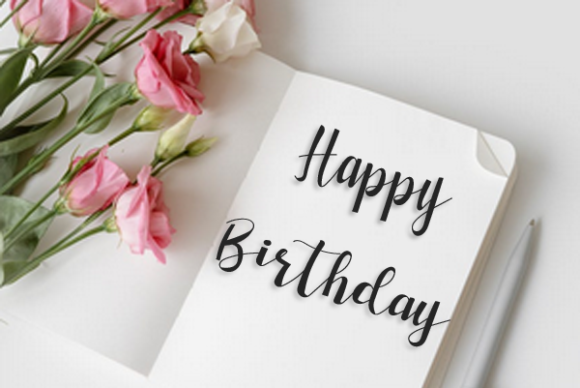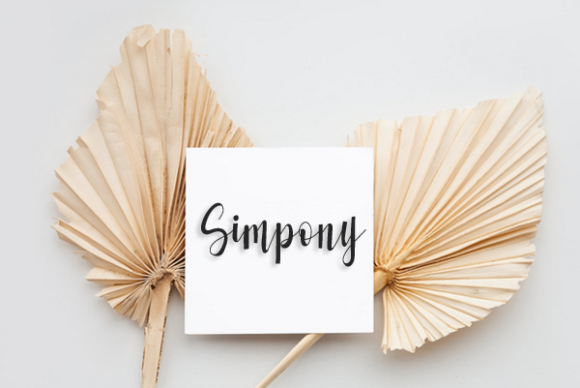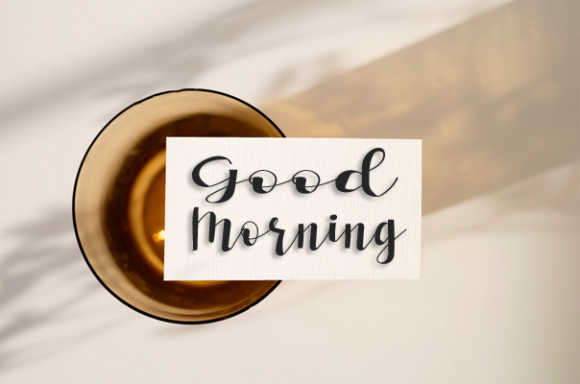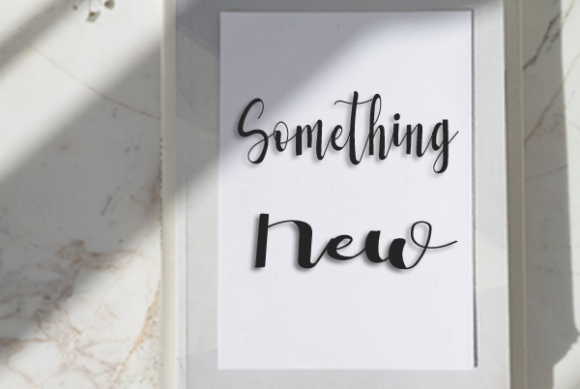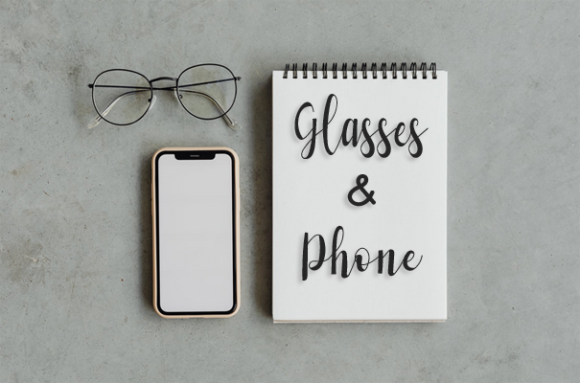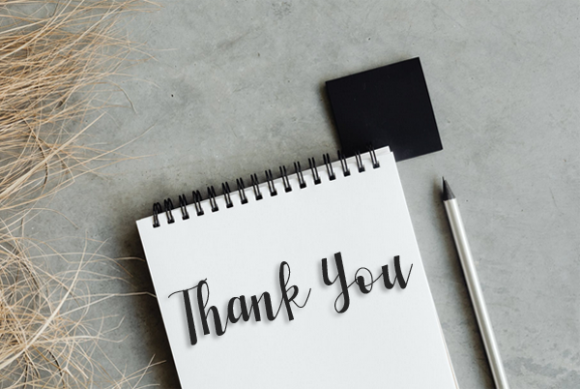
The Designer’s Delight: Unleashing the Power of Attack Font
I’ll never forget the time I was working on a project for a client who wanted a whimsical, playful vibe. I had spent hours scouring font libraries, but nothing seemed quite right. That was until I stumbled upon Attack Font. It was like a breath of fresh air – the relaxed theme and lovely style instantly elevated my design. In this article, I’ll share my experience with Attack Font, its features, and how to make the most of it in your designs.
An Honest Review of Attack Font
So, what makes Attack Font so special? Let’s dive into the good stuff and a few quirks I’ve discovered.
• ✨ Whimsical and playful style that’s perfect for creative projects
• 💫 Features a wide range of OpenType features, glyphs, and stylistic alternates
• 🌈 Works beautifully for both digital and print designs
While Attack Font is an excellent addition to any design library, there are a few things to keep in mind:
• 🤔 Some characters may not work well in all contexts, so be sure to test and adjust as needed
• ⚠️ Limited support for non-English languages, so double-check compatibility before use
The Story Behind Attack Font
While the origins of Attack Font are shrouded in mystery, it’s clear that the designer had a passion for whimsical, playful typography. Imagine a designer who spent hours experimenting with letterforms, seeking to create a font that would bring joy to users. That’s the story behind Attack Font – a labor of love that’s sure to delight designers and crafters alike.
Q: What type of projects is Attack Font best suited for?
A: Attack Font is versatile and can be used in a wide range of projects, from creative graphics and social media posts to branding and advertising.
Q: Is Attack Font suitable for body text?
A: While Attack Font is highly legible, it’s best suited for headings, titles, and short paragraphs. For longer body text, consider using a more traditional serif or sans-serif font.